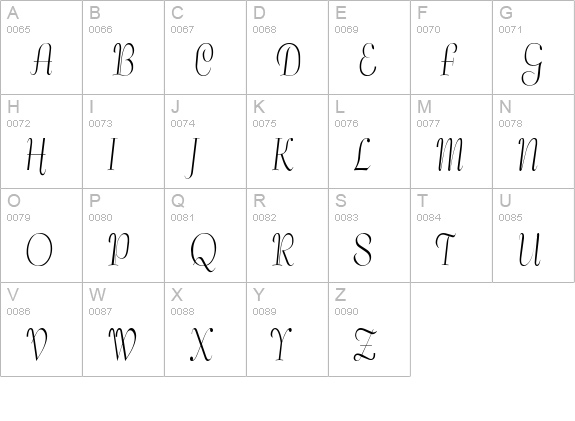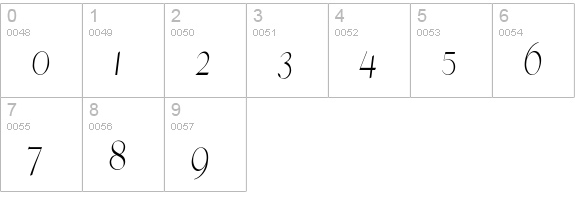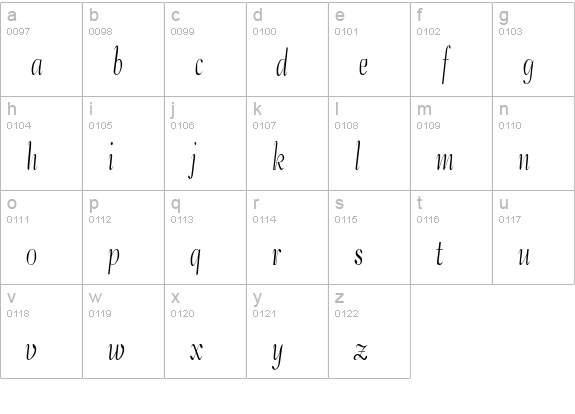
Tango Condensed Normal Font Details
Tango Condensed Normal is the standard, neutral, condensed-width variant in the Tango typeface family \xE2\x80\x94 well suited to general body text, paragraphs, and standard typographic work.
Tango Condensed Normal font is a sleek and elegant typeface that exudes sophistication and modernity. Its condensed form makes it perfect for fitting more text into limited spaces while maintaining clarity and readability. The clean lines and well-defined curves of this font give it a contemporary and polished look that is suitable for a wide range of design projects. This versatile font can be used for various purposes, whether you need to create eye-catching headlines, design striking logos, or craft professional-looking business documents. Its simplicity and versatility make it a go-to choice for both print and digital media. What makes Tango Condensed Normal font even more appealing is that it is freely available to download at FontsMarket.com. This means that you can access and use this high-quality font without any cost, making it a valuable resource for designers, creatives, and anyone in need of a reliable and visually appealing typeface. With Tango Condensed Normal font, you can add a touch of elegance and modernity to your design projects without breaking the bank. Its clean and refined aesthetic combined with its availability for free download makes it a must-have font for anyone looking to elevate their designs with a touch of sophistication. So why wait? Head over to FontsMarket.com and unleash the creative possibilities that Tango Condensed Normal font has to offer.